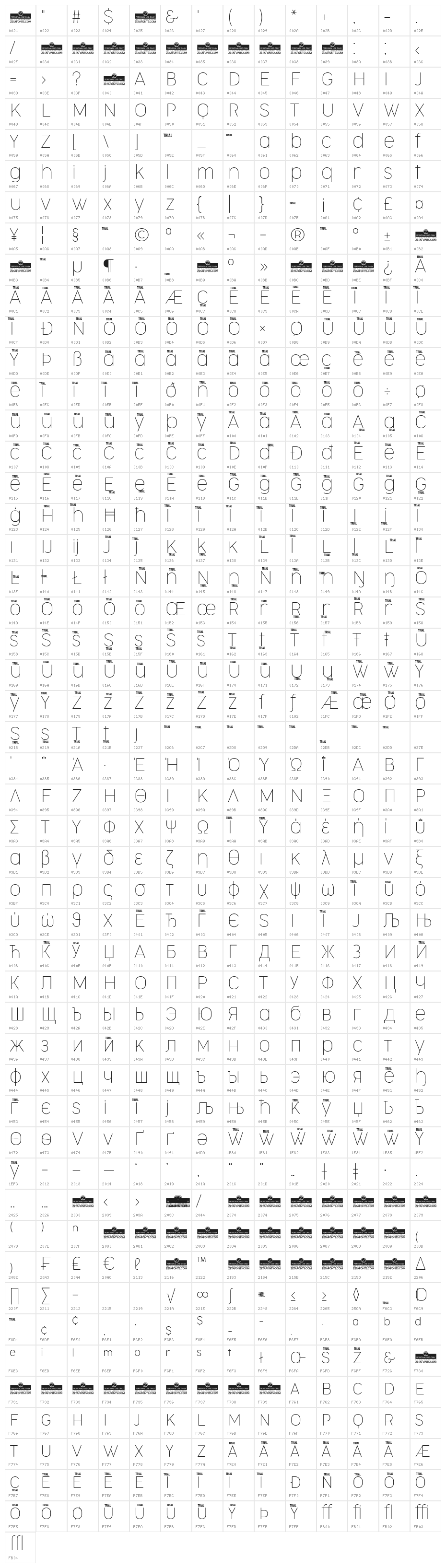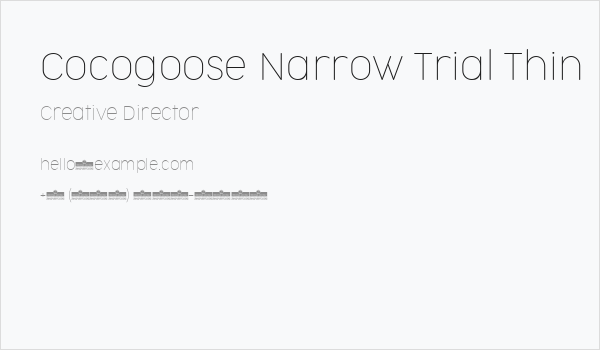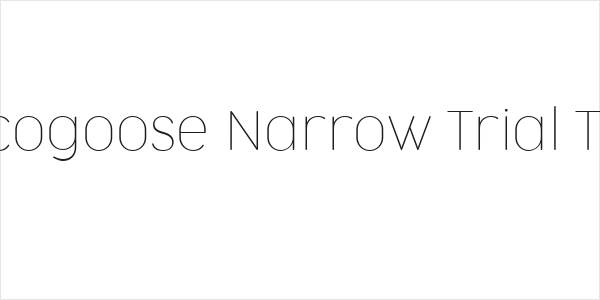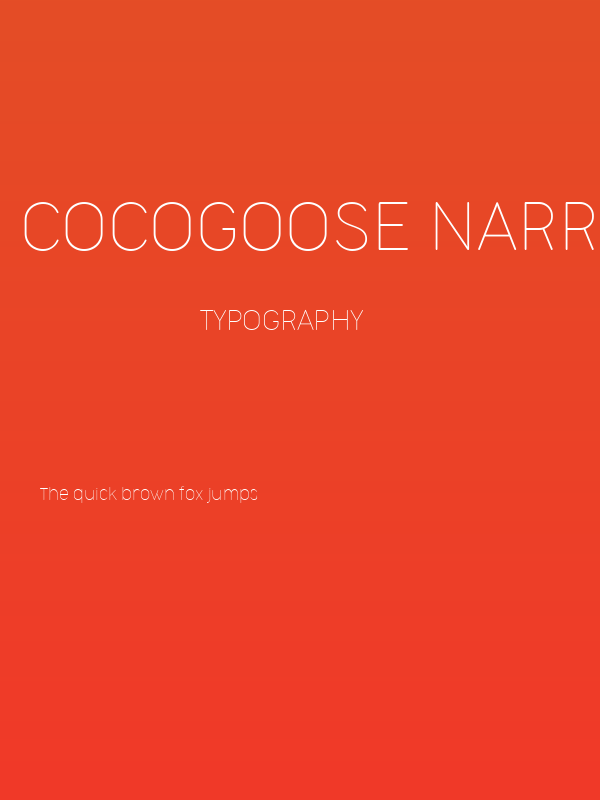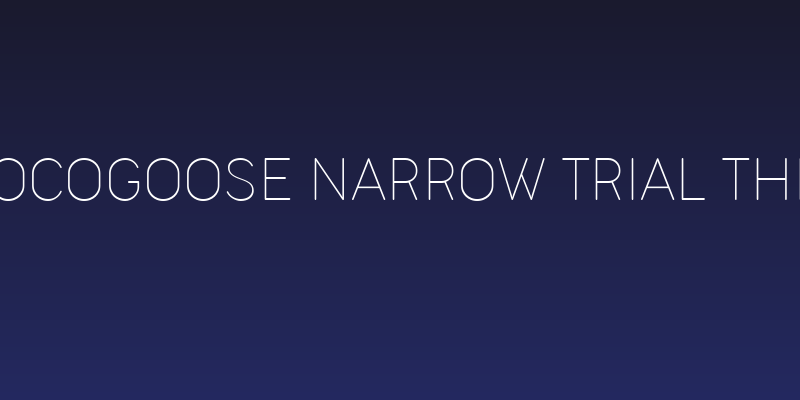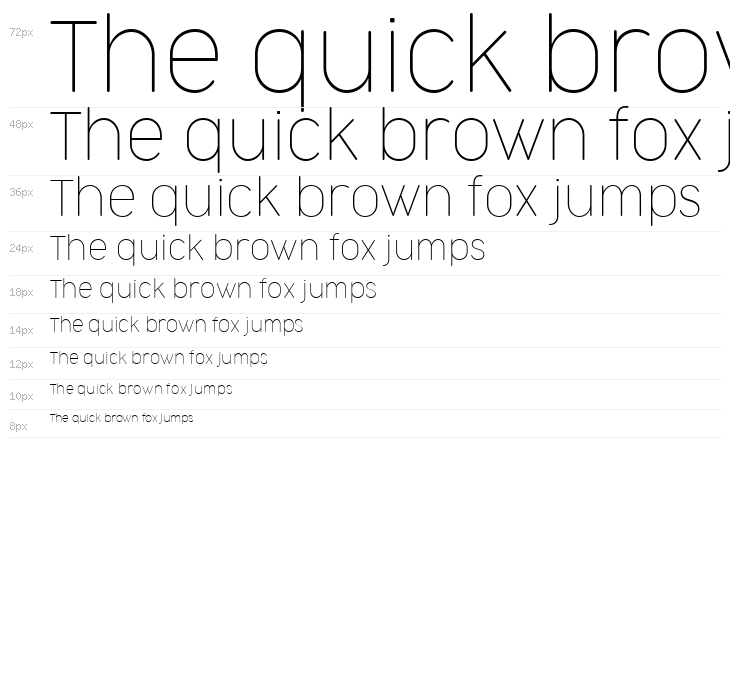
Cocogoose Narrow Trial Thin Font
Cocogoose Narrow Trial Thin Description
This font features a sleek and modern design with thin, clean lines and a narrow structure. It maintains a minimalist aesthetic, making it suitable for contemporary design projects. The uppercase and lowercase letters are well-proportioned, with a consistent stroke width that adds to its elegant appearance. The numerals and special characters are designed to complement the overall style, ensuring readability and visual harmony. Its simplicity and clarity make it versatile for various applications, from digital to print media.
Proposed ProjectsIdeal for branding, editorial design, web design, and minimalist graphic projects.